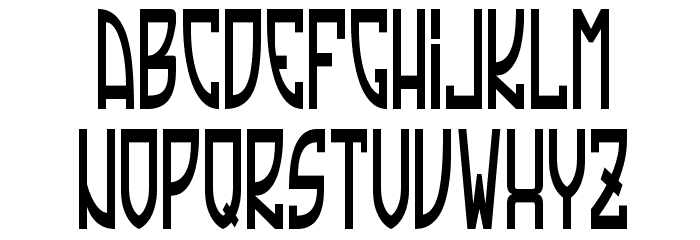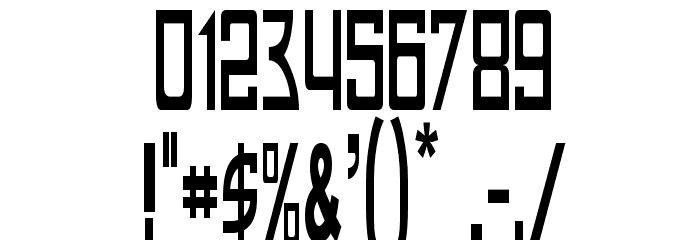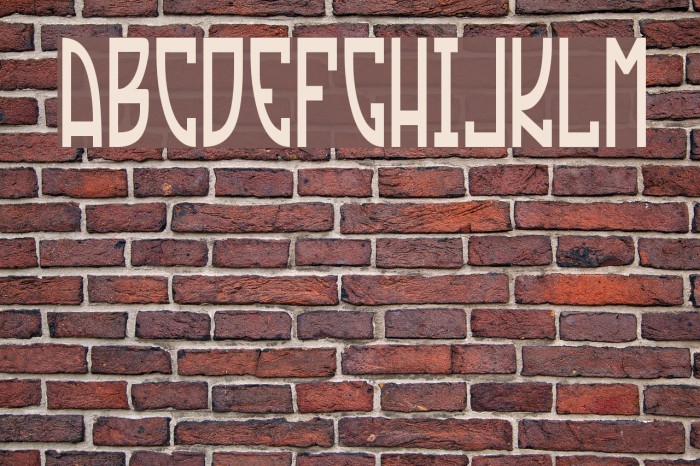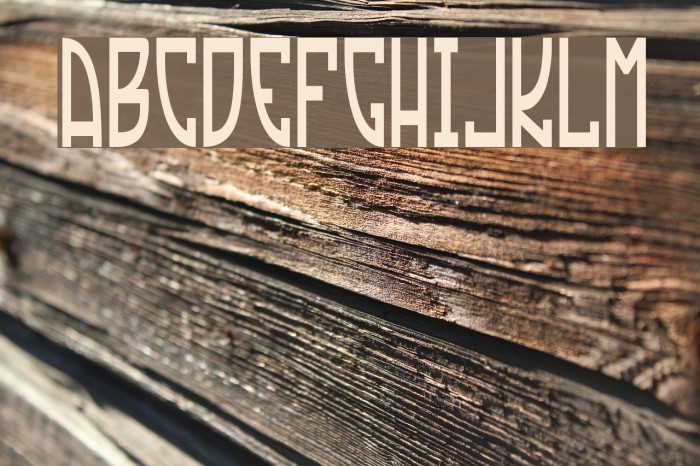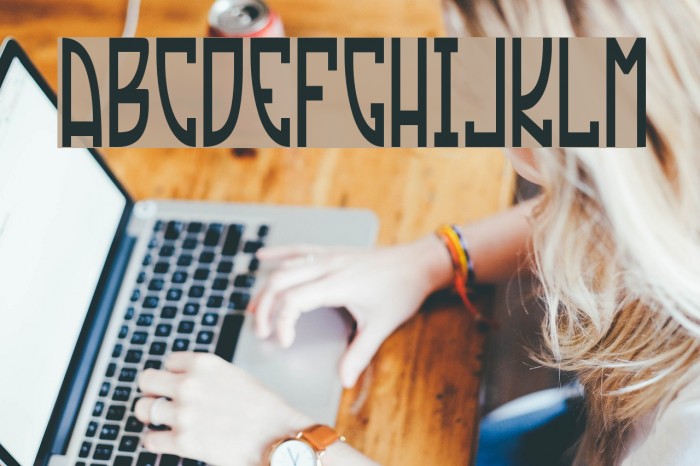
Tradizione Slim Font
This font features a unique blend of geometric and angular elements, creating a striking and modern appearance. The uppercase letters are tall and narrow, with sharp edges and distinct angles that give them a futuristic feel. The lowercase letters maintain the same angular style, ensuring consistency across the typeface. Numbers and special characters are designed to match the overall aesthetic, with clean lines and precise angles. The font's slim profile and high contrast between thick and thin strokes make it ideal for creating eye-catching designs. Its distinctive style is both contemporary and versatile, suitable for a variety of creative projects.
A modern, angular font with a geometric and slim profile.